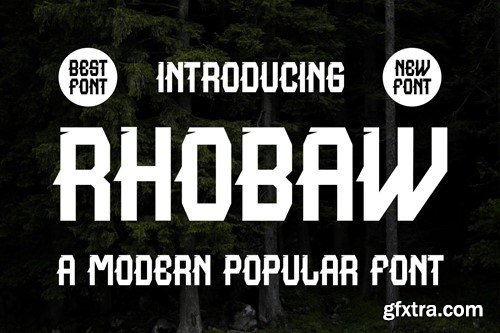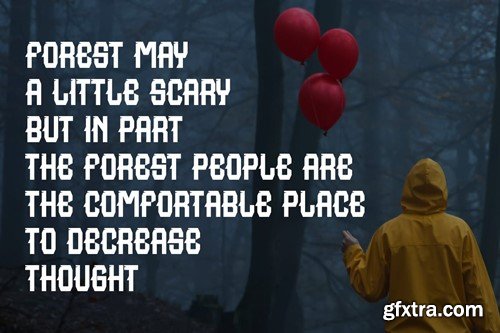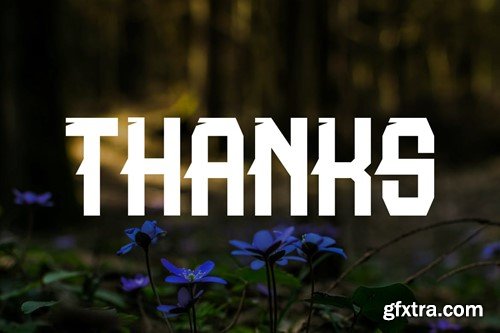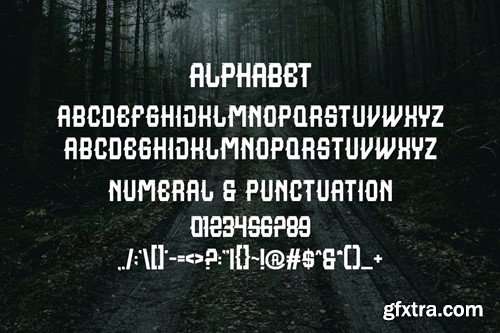
Rhobaw Font
Introducing Rhobaw Modern Sans Serif. Rhobaw is a modern and simple font, best used as a display for headings, logos, branding, magazines, product packaging and invitations. Rhobaw come with clean lines and smooth curves give any project an extra touch of class. What you get: Thank you.